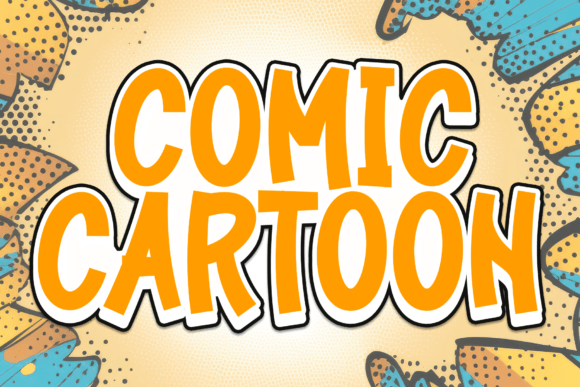
Unleash Your Creativity with the Comic Cartoon Font
Have you ever sat at your desk, staring blankly at a blank canvas, searching for that one spark to ignite your creativity? For designers, this moment is all too familiar. It’s the moment when the perfect font can make all the difference between a great design and an amazing one. That’s where the Comic Cartoon Font comes in – a sweet and friendly handwritten font that’s sure to bring a smile to your face.
With its natural and unique style, the Comic Cartoon Font is the perfect addition to any design project. Whether you’re creating a children’s book, a social media graphic, or a logo, this font is sure to add a touch of whimsy and personality. And the best part? The only limit is your imagination – so go ahead, get creative, and see what amazing things you can come up with using the Comic Cartoon Font.
Key Features of Comic Cartoon Font
- Unique Characteristics: Comic Cartoon Font features a playful, handwritten style with exaggerated letterforms and flourishes, making it perfect for comic books, cartoons, and children’s materials.
Comic Cartoon Font Review
Overall, I think the Comic Cartoon Font is a fun and playful option for designers looking to add a lighthearted touch to their projects. Here are some things that work well:
- ✨ The font is highly customizable, allowing you to adjust the color, size, and style to fit your project’s needs.
- ✨ The font is highly legible, even at smaller sizes, making it a great option for projects where text needs to be easily readable.
- ✨ The font is highly versatile, working well in a variety of contexts, from digital designs to print materials.
- ⚠️ The font may not be suitable for more formal or professional projects, as its playful nature may come across as unprofessional.
- ⚠️ The font may not be as effective in smaller text sizes, where its playful nature may become lost.
- ⚠️ The font may not be as widely supported as more traditional fonts, which could cause issues in certain design contexts.
In terms of overall impression, I think the Comic Cartoon Font is a great option for designers looking to add a bit of whimsy to their projects. While it may not be suitable for every project, it’s a fun and versatile font that can add a lot of personality to your designs.
Comic Cartoon Font is ideal for:
- Children’s books and educational materials.
- Comic strips and graphic novels.
- Cartoon-style infographics and presentations.
For the best results, use Comic Cartoon Font in combination with bold lines, bright colors, and playful graphics.